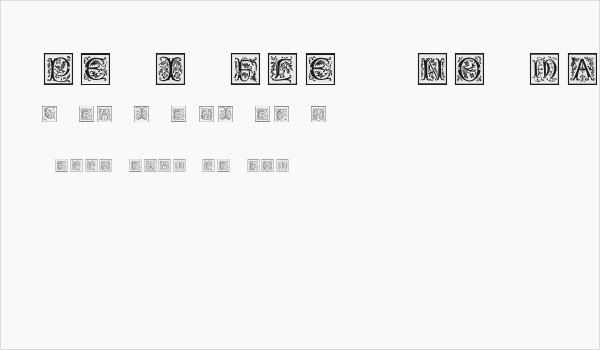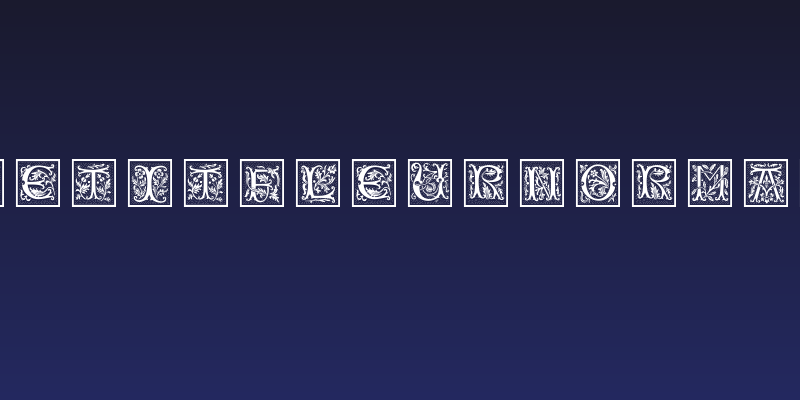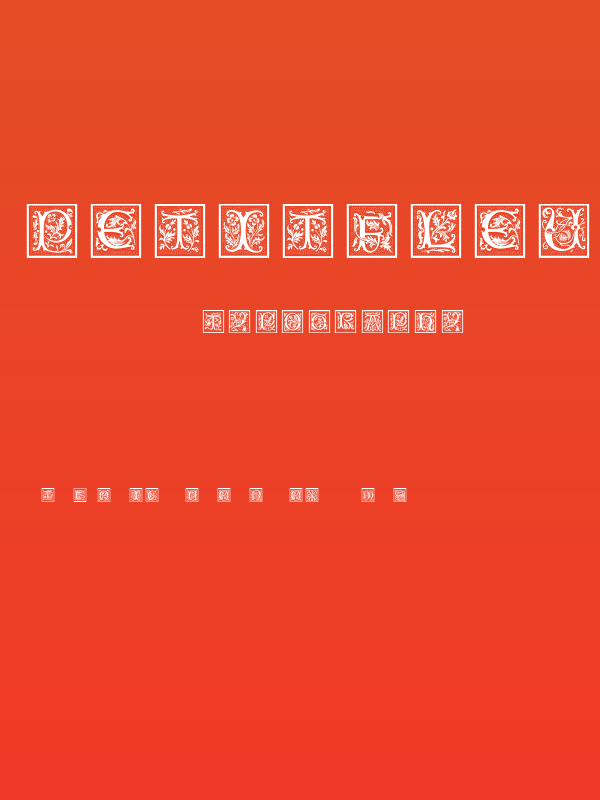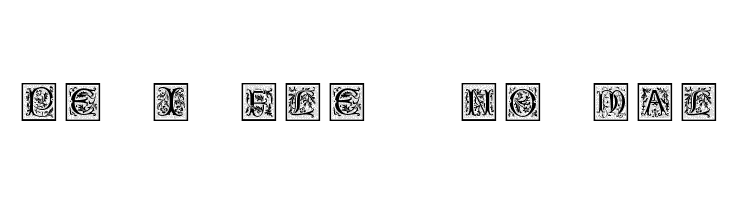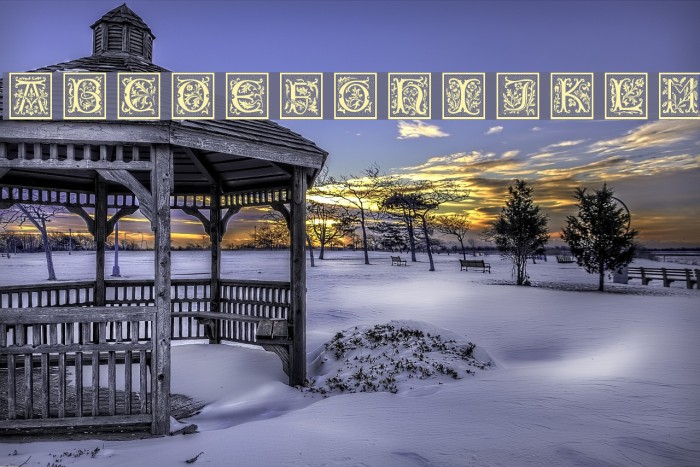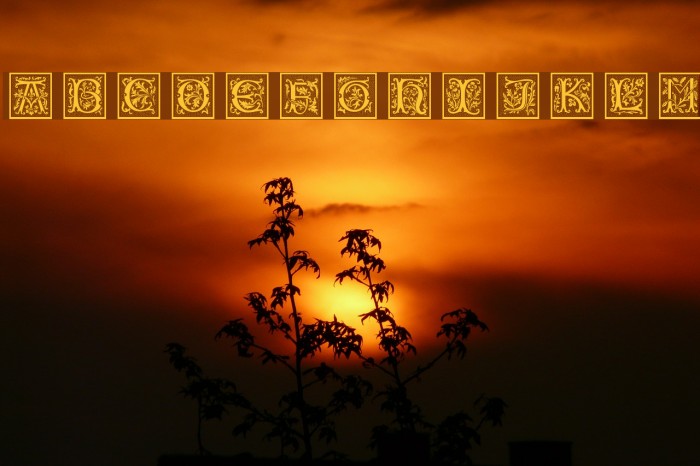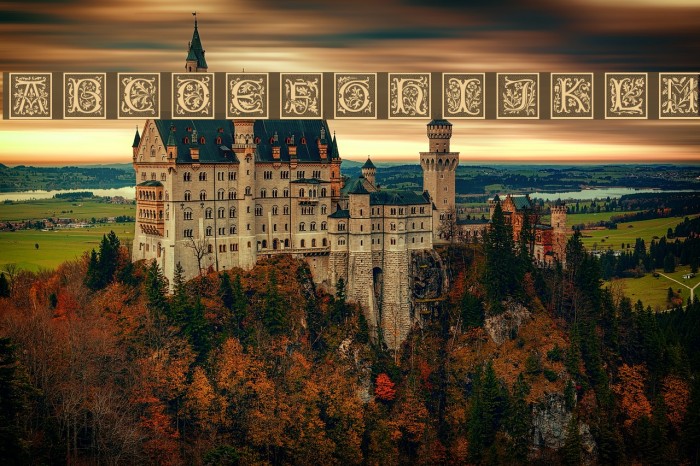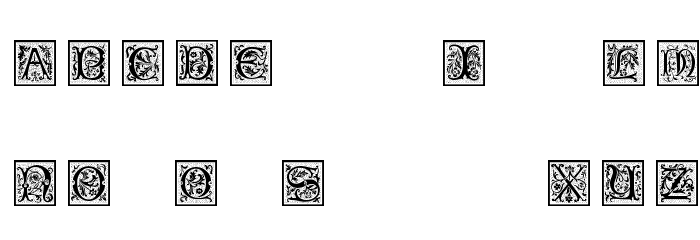
PetitFleurNormal Font
PetitFleurNormal Description
This font features an ornate and decorative style, with each character enclosed in a square frame. The letters are embellished with intricate floral and vine-like patterns, giving them a vintage and artistic appearance. The design is highly detailed, making it suitable for decorative purposes where a touch of elegance and sophistication is desired. The characters are evenly spaced within their frames, providing a consistent and balanced look. This font is ideal for projects that require a historical or classical aesthetic.
| Overall Style | Vintage, Decorative |
| Use Case | Logos, Headlines, Decorative text |
| Proposed Projects | Ideal for wedding invitations, vintage-themed posters, book covers, and decorative signage. |